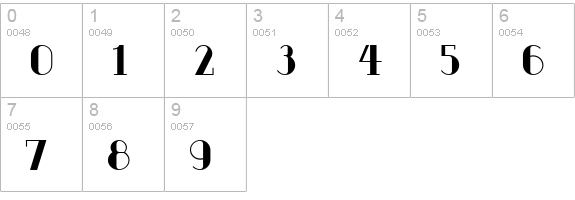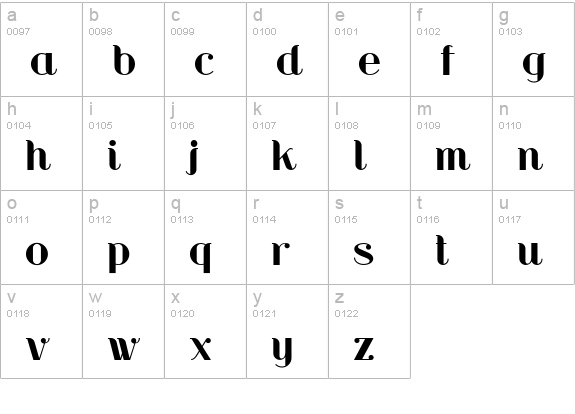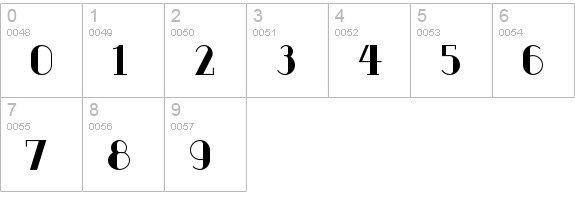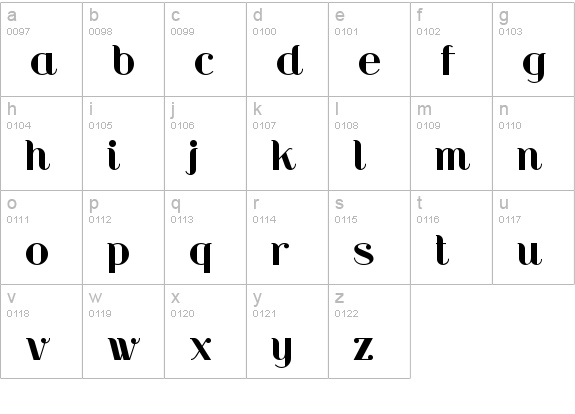
Riot Squad NF Font Details
Riot Squad NF font is a striking and edgy typeface that exudes a rebellious and energetic vibe. With its sharp angles and bold lines, this font is perfect for grabbing attention and making a statement. Whether you're working on a poster, logo, or any other design project that needs a touch of attitude, Riot Squad NF is sure to deliver. The best part is that Riot Squad NF font is completely free to download at FontsMarket.com. You can add this dynamic font to your collection without any cost, making it a valuable resource for your creative projects. So go ahead and explore the versatility and impact of Riot Squad NF font, and let your designs stand out from the crowd.